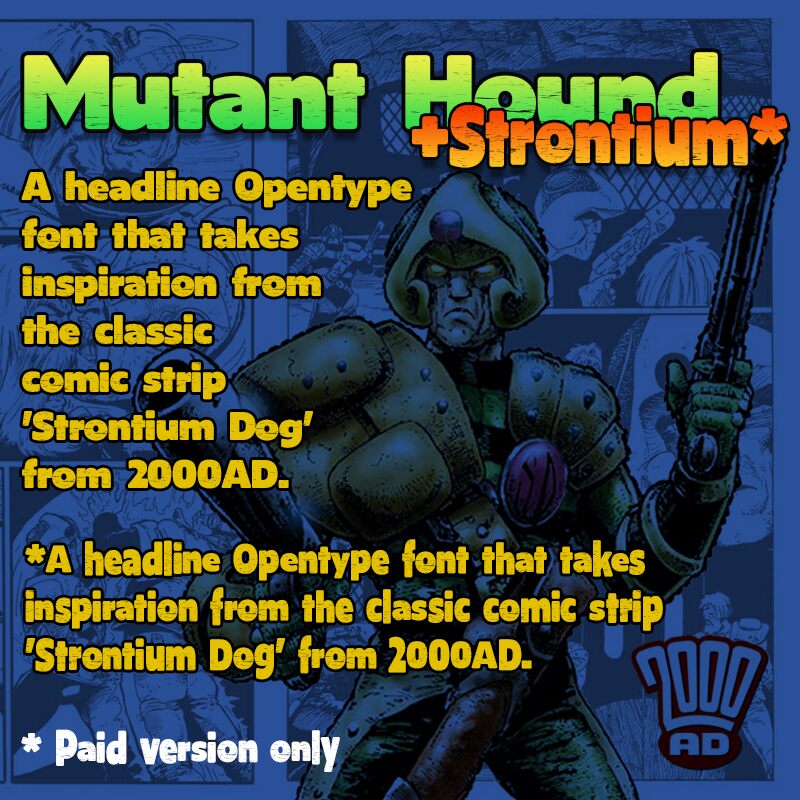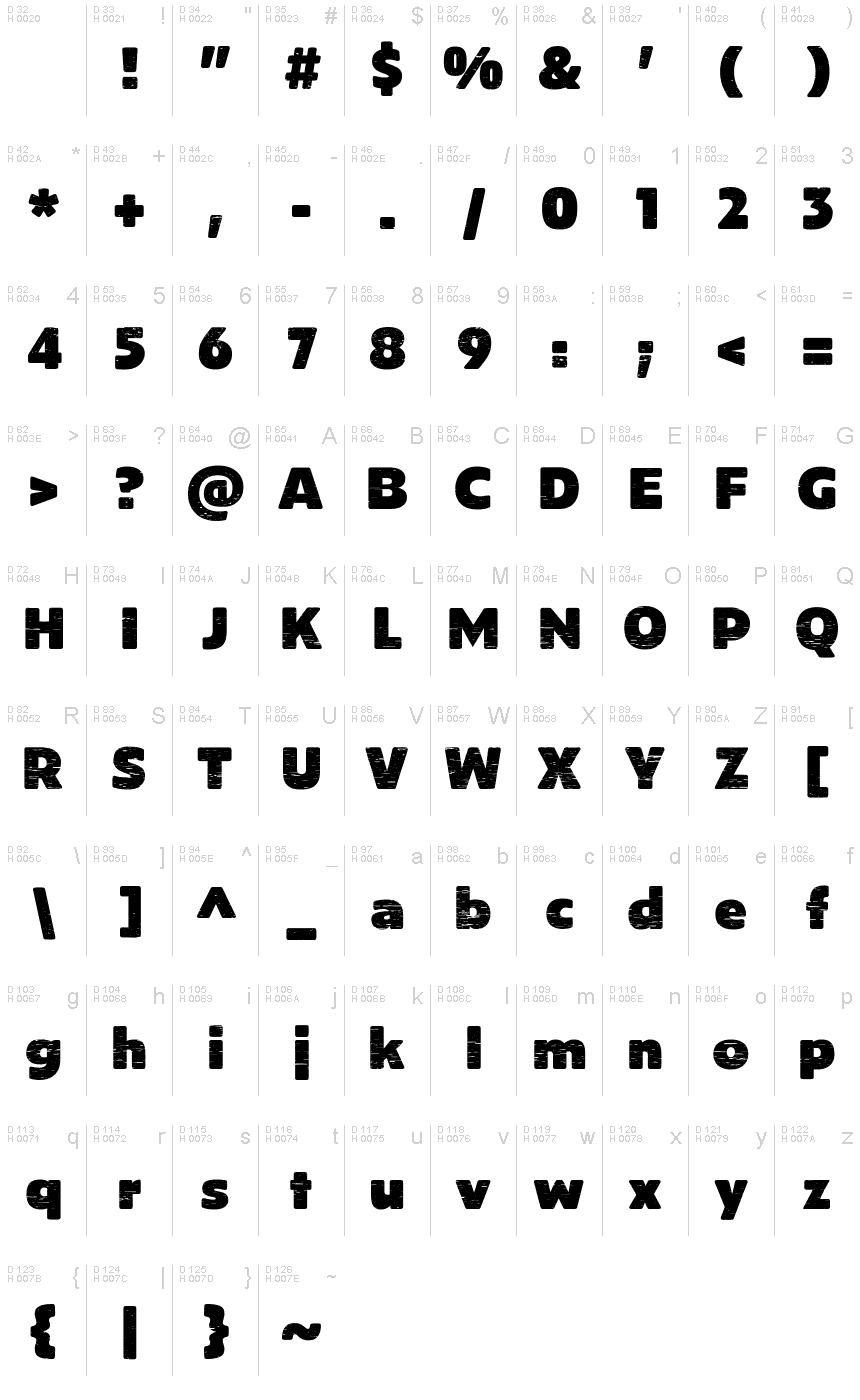
Mutant Hound, the latest creation by TracerTong Fontworks, is a display font that exudes strength and ruggedness. The eroded style adds a touch of edginess to any project, making it perfect for designs that call for an extra-bold statement. The semi-expanded width of this typeface makes it versatile enough for use in various projects ranging from movie posters and album covers to video game titles and clothing brands. Mutant Hound's unique personality brings life to any design and makes it stand out from the crowd. Try it out today and experience its boldness firsthand!
Full version has the following OpenType Features:
- Contextual alternates*
- Accented characters
- Fractions
- Ligatures / Discretionary ligatures
* If you're unfamiliar with contextual alternates, they make the typed word look a little more organic with letters substituted for alternates. For example, typing two of the same letter/number will produce different versions of that letter glyph.